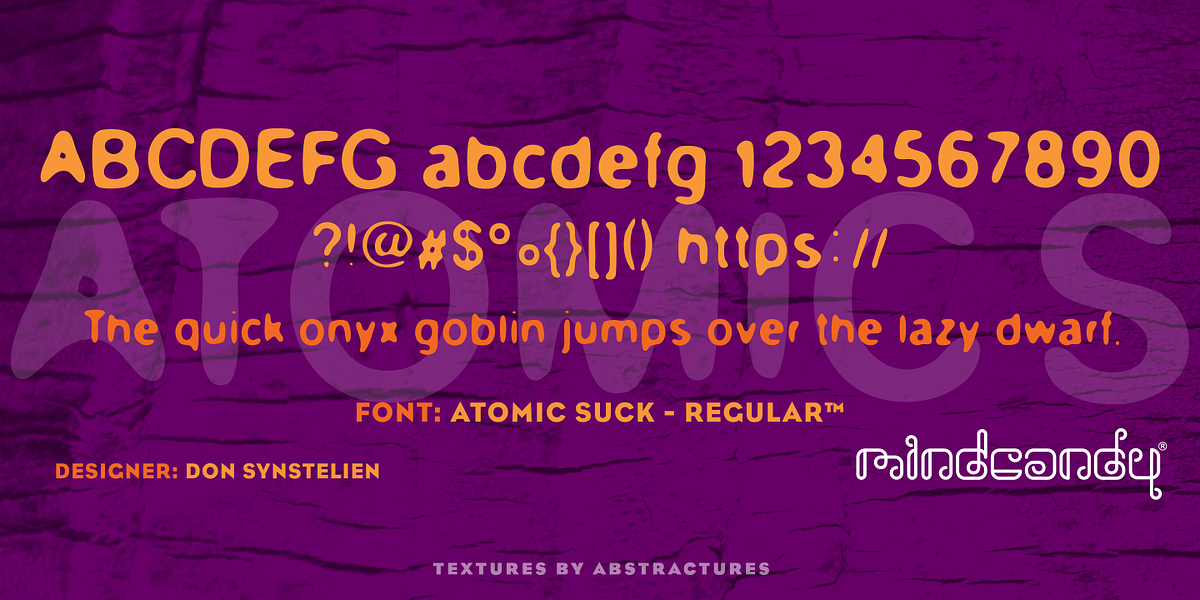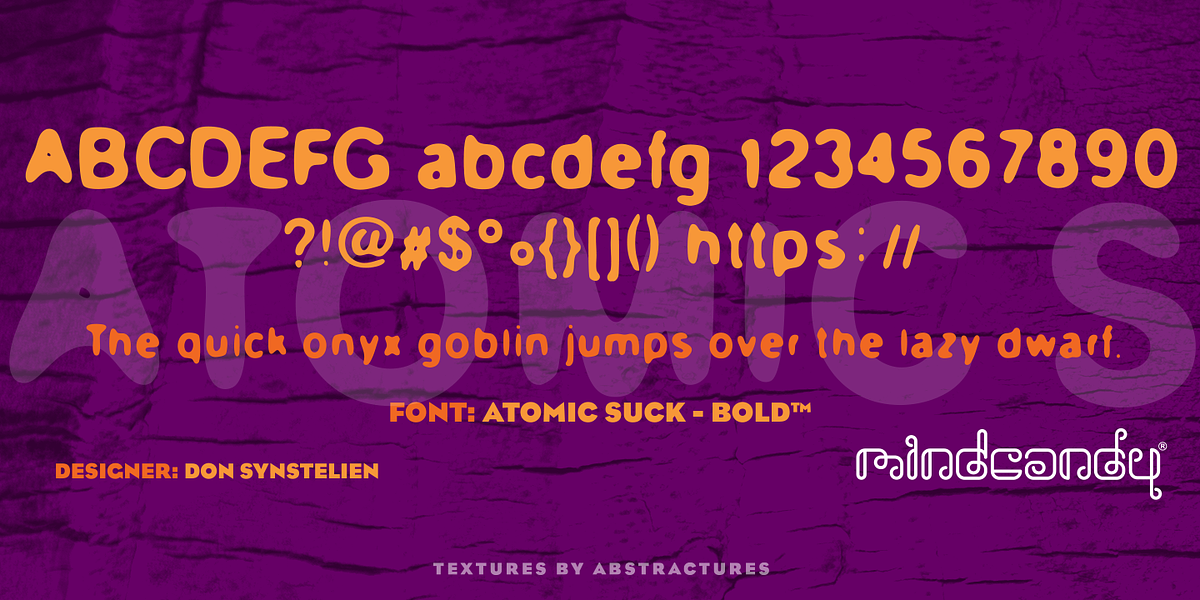
Atomic Suck™
This headline sans-serif font designed by Don Synstelien boasts a soft and approachable appearance. Its rounded edges make it suitable for headlines in various applications.